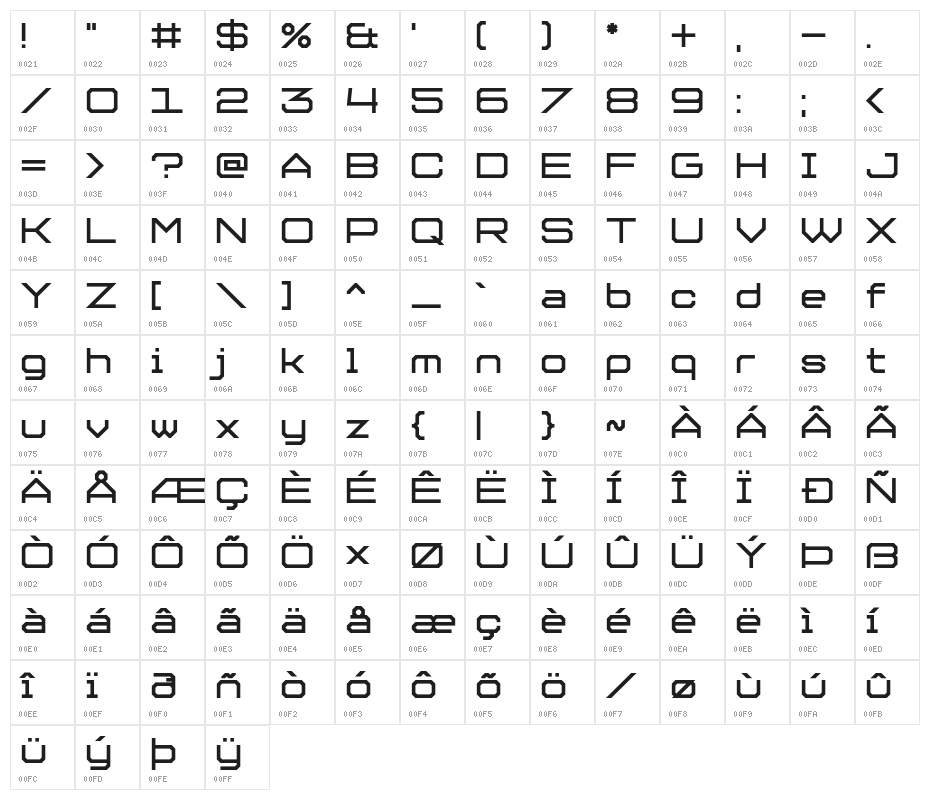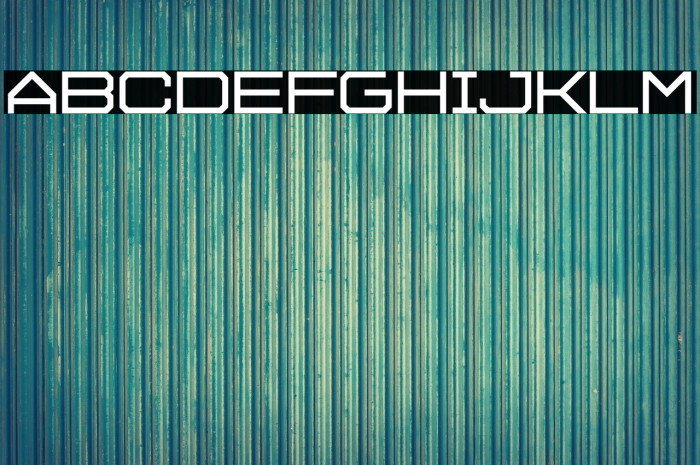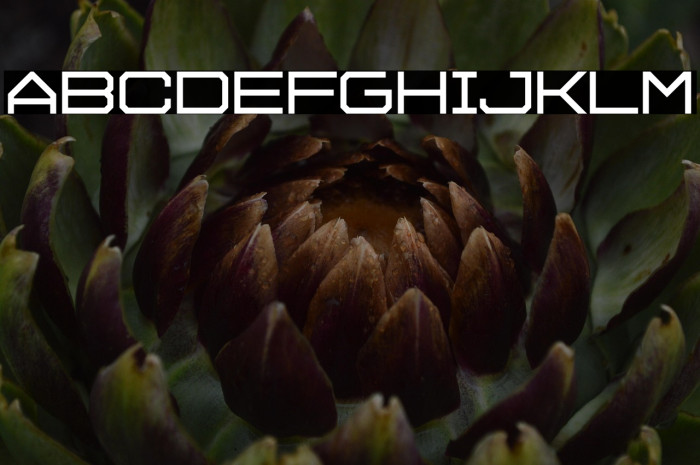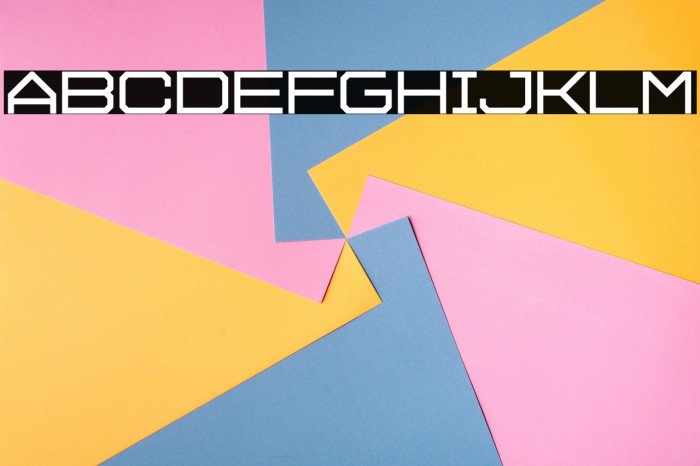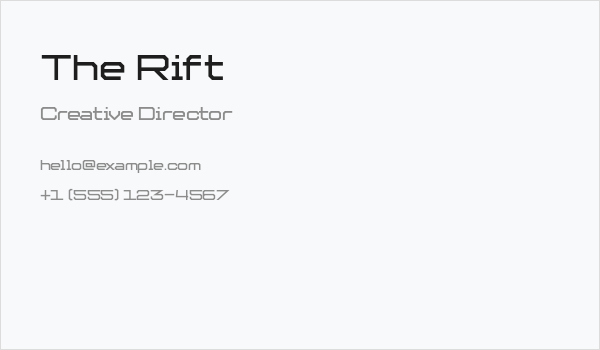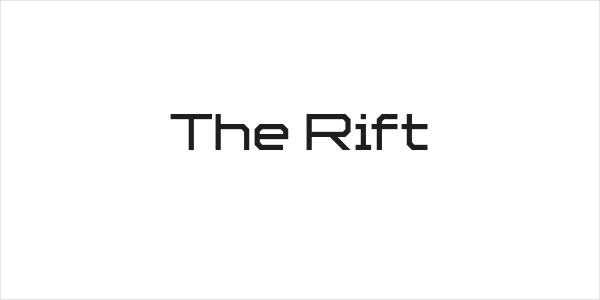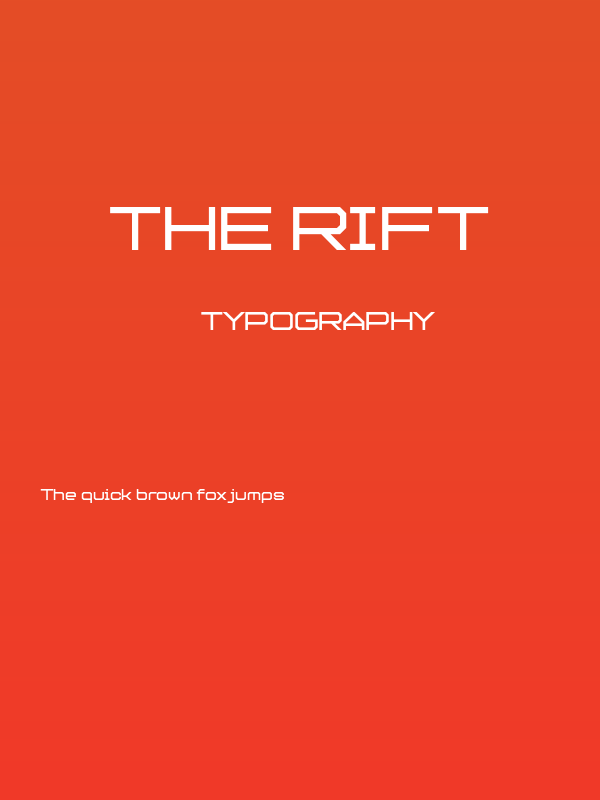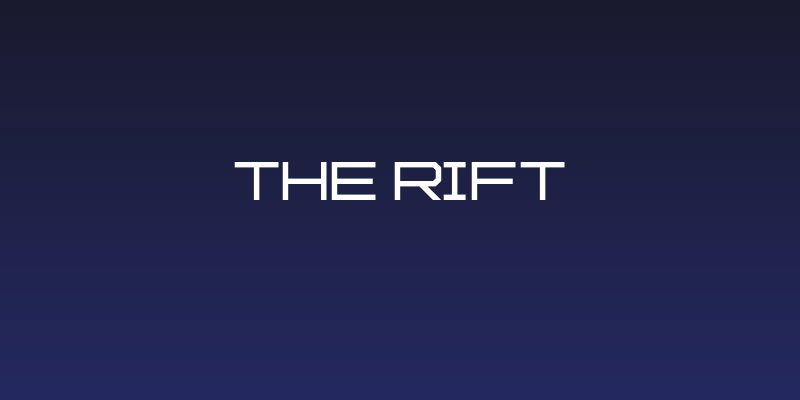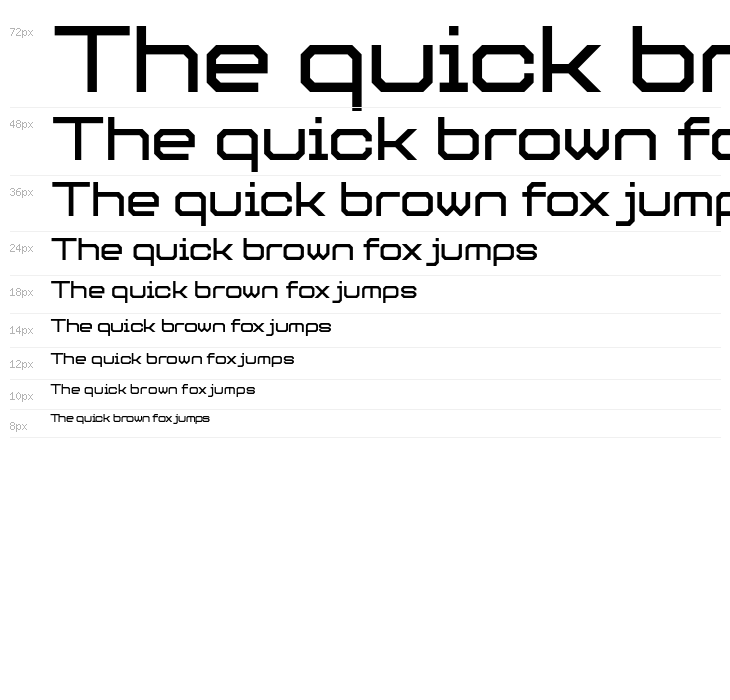
The Rift Font
The Rift Description
This font features a geometric and futuristic design with sharp, angular lines and a distinct, technical appearance. The characters are constructed with a consistent stroke width, giving it a uniform and structured look. The uppercase and lowercase letters maintain a similar style, with the lowercase being slightly more rounded. The numerals and special characters follow the same angular theme, making the font cohesive across all characters. Its unique style is reminiscent of digital or sci-fi aesthetics, making it stand out in modern design contexts.
| Use Case | Logos, Headlines, Digital interfaces |
| Proposed Projects | Ideal for technology branding, sci-fi themed projects, video game interfaces, and modern digital designs. |